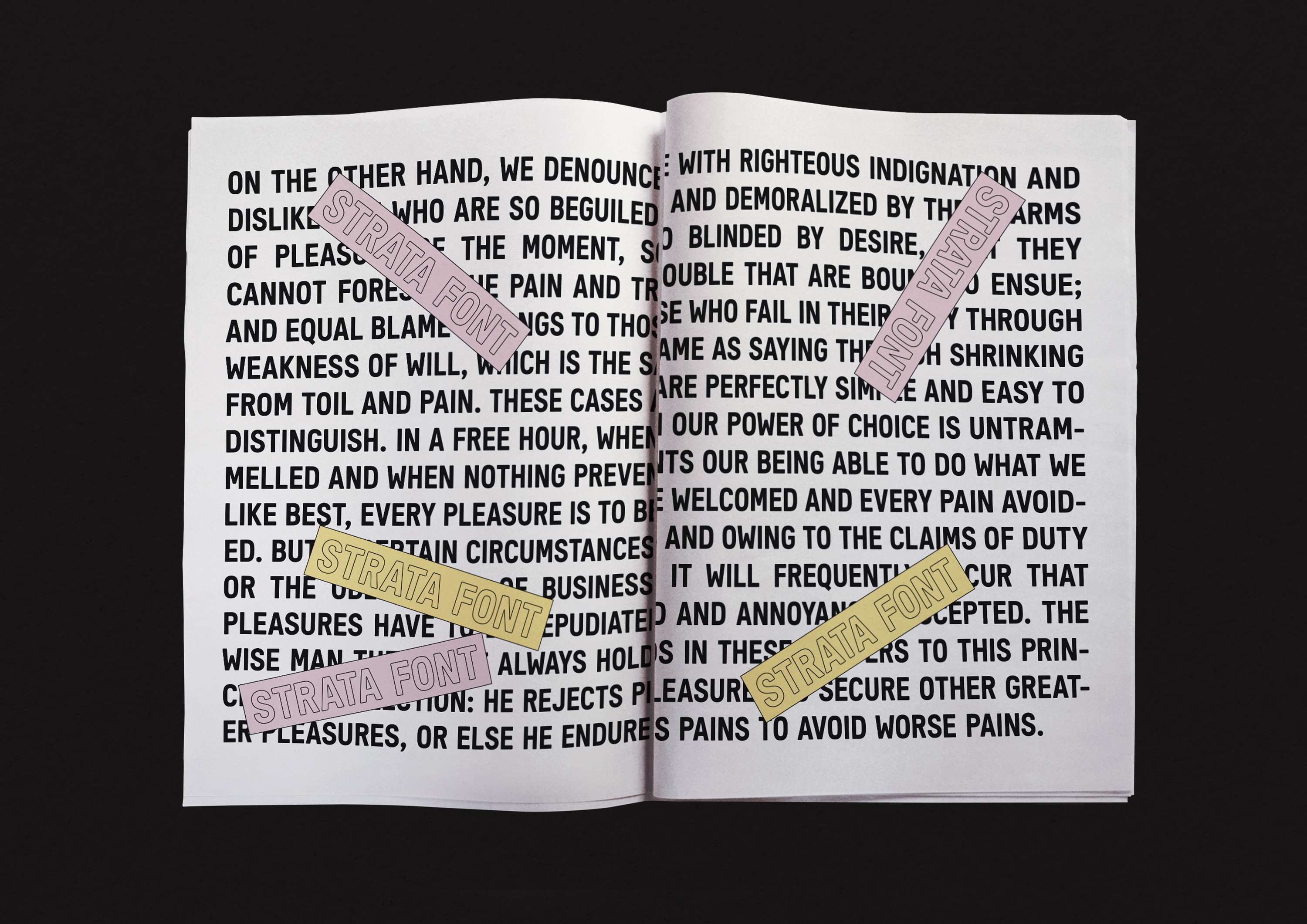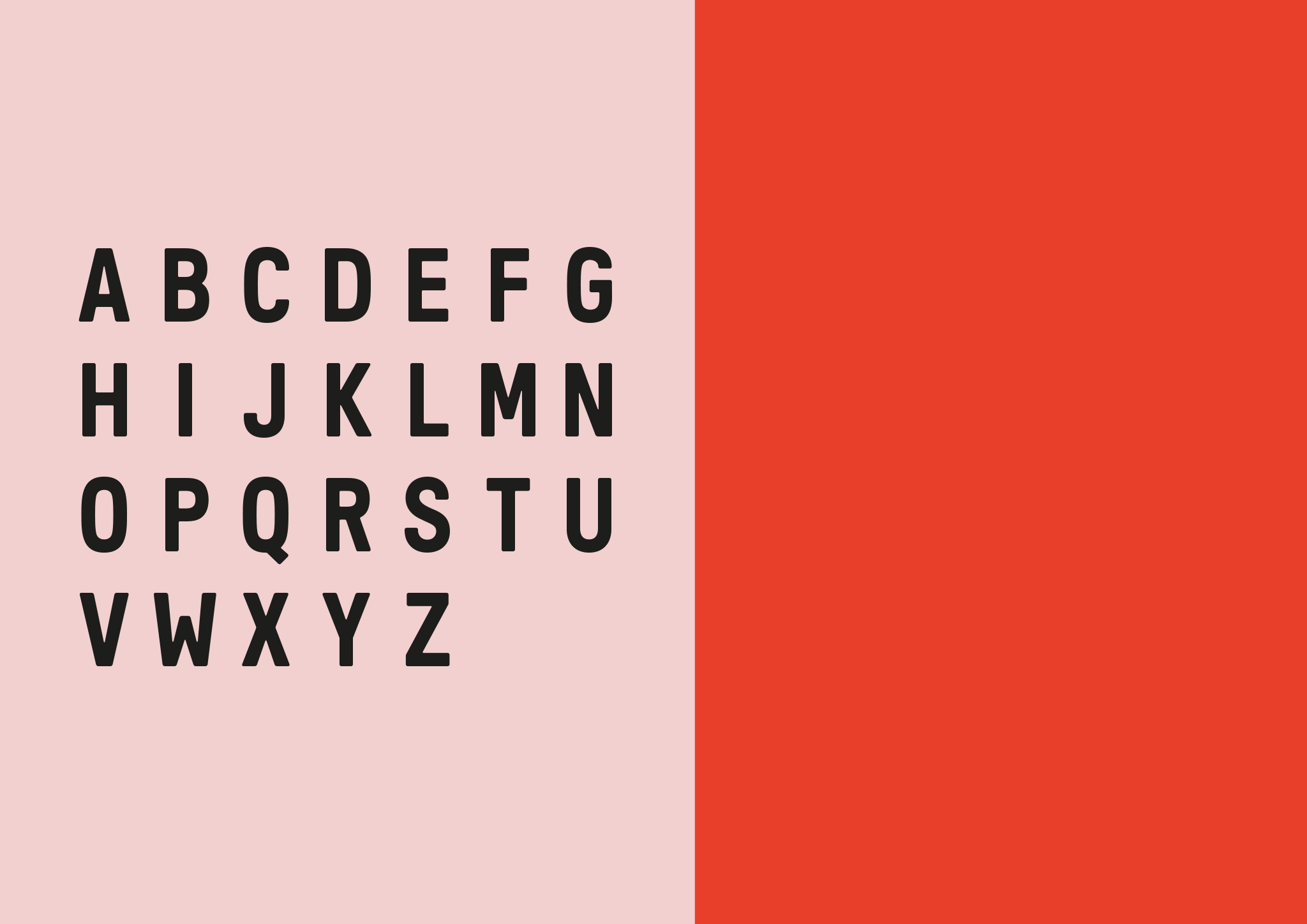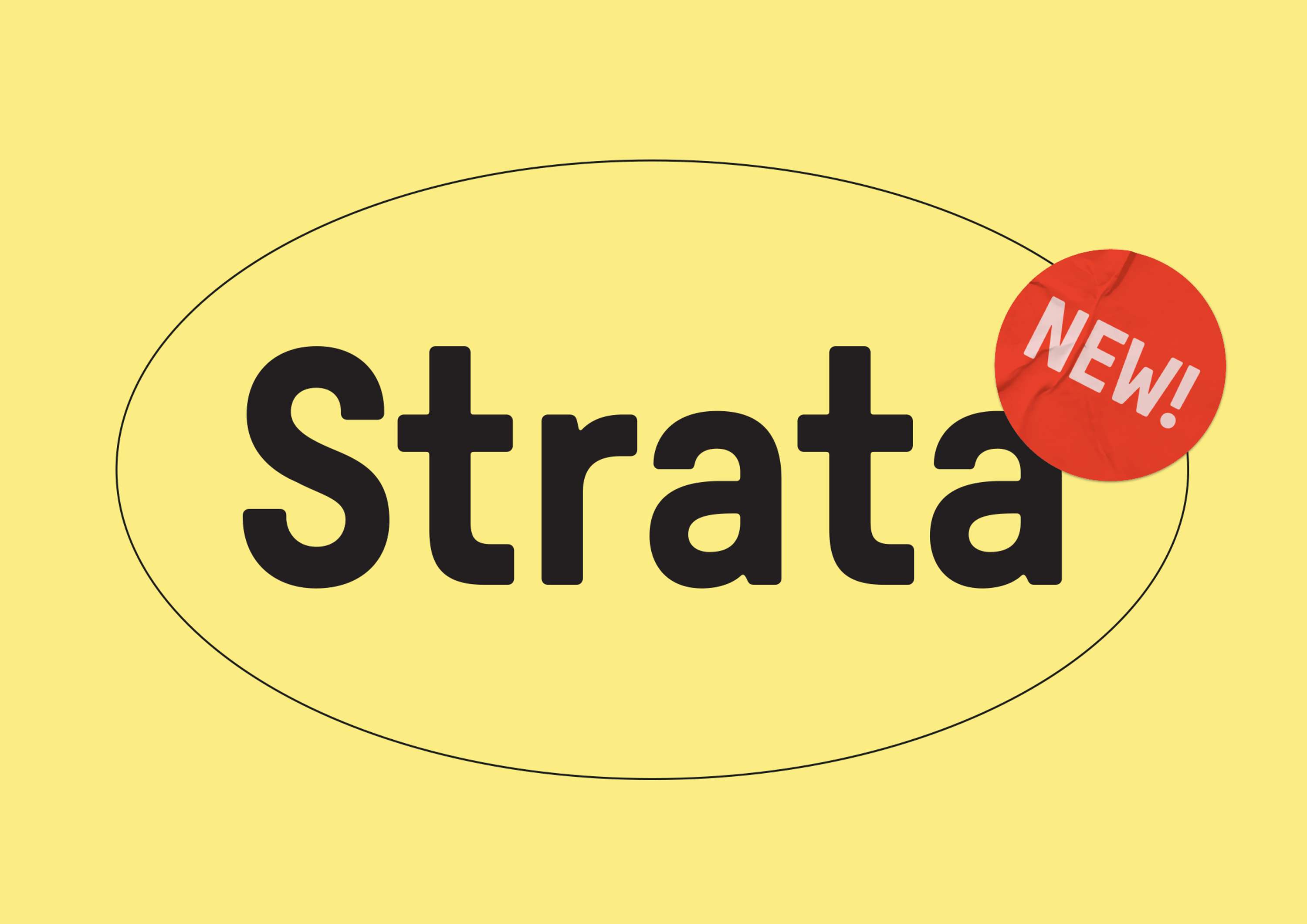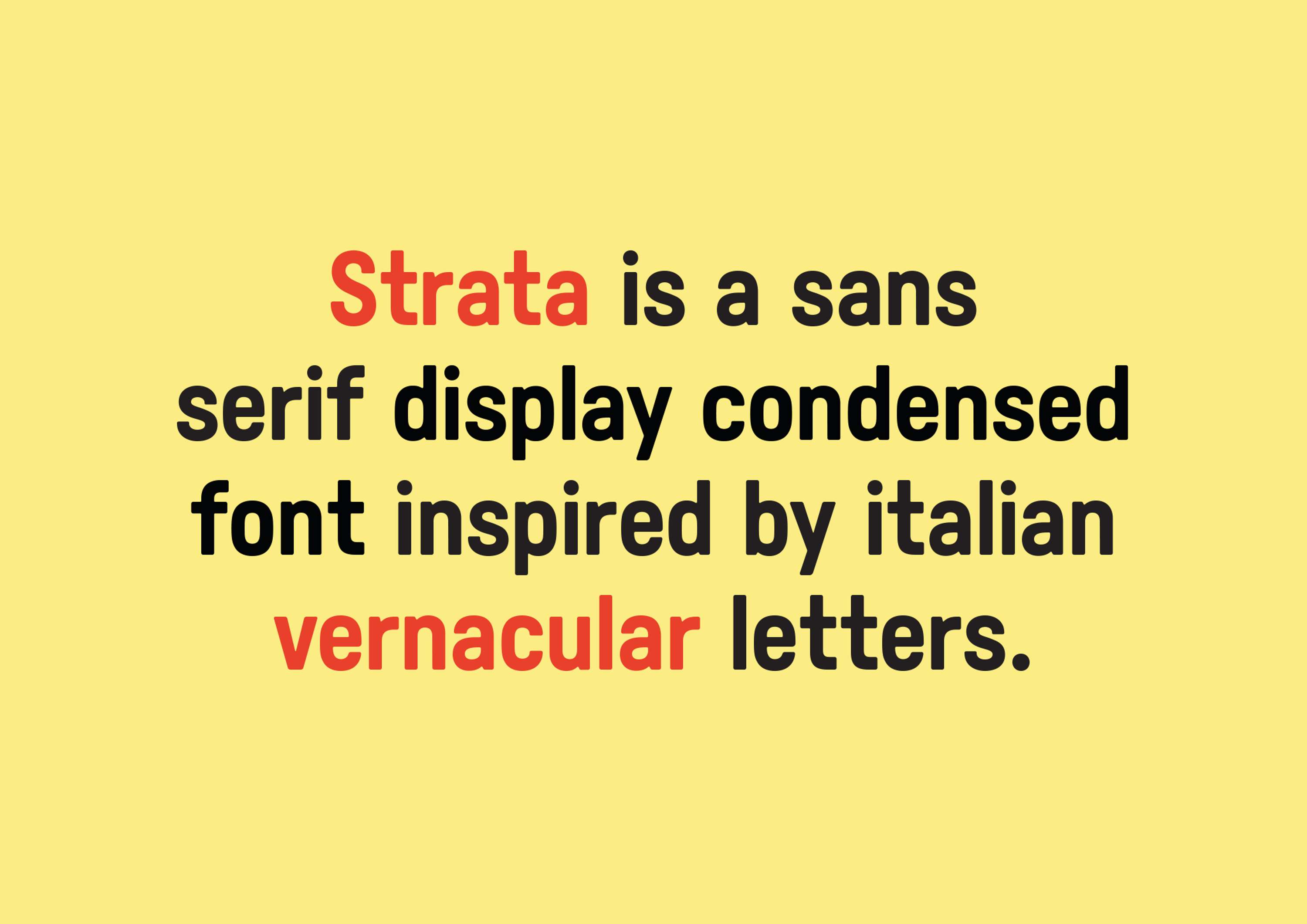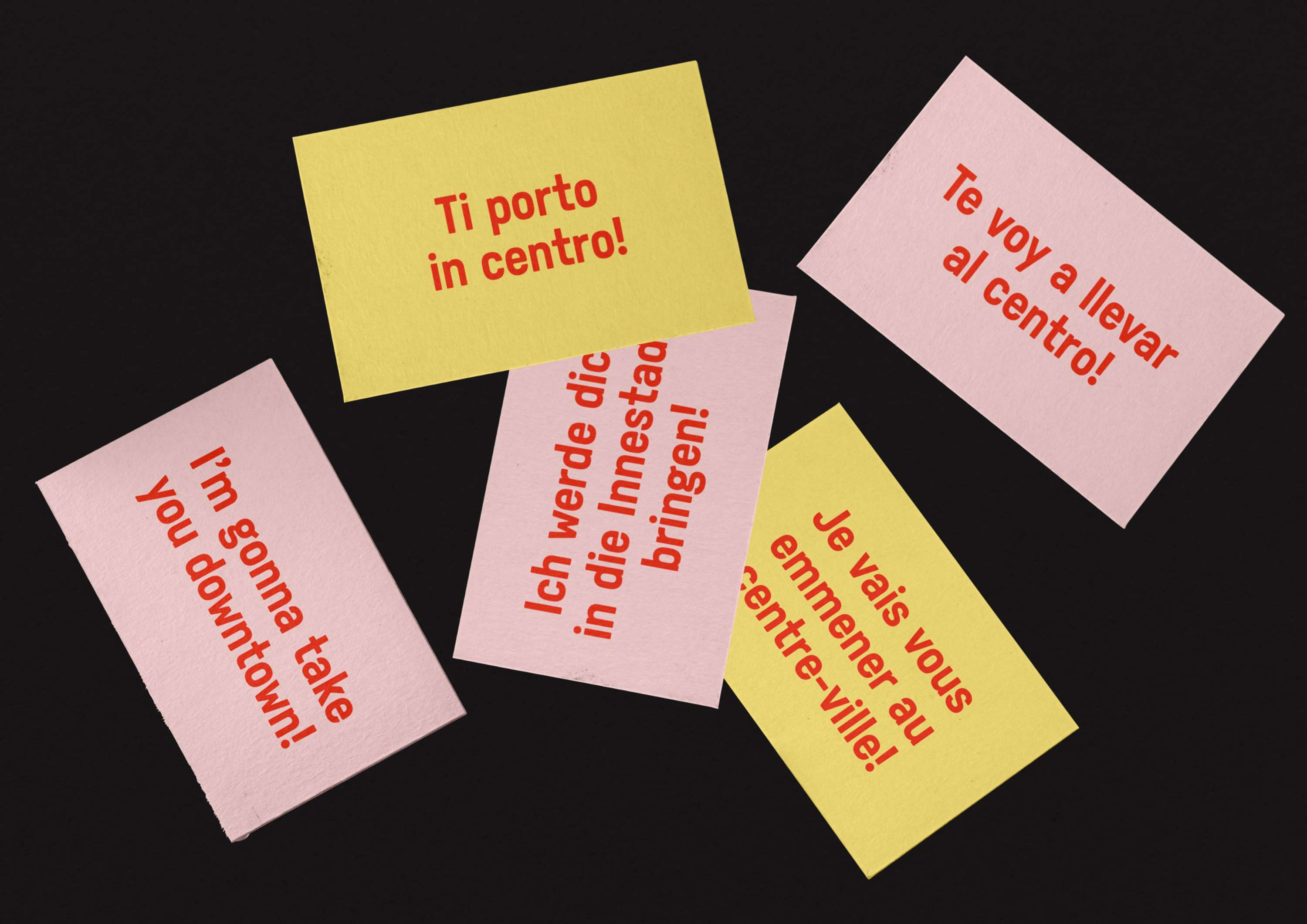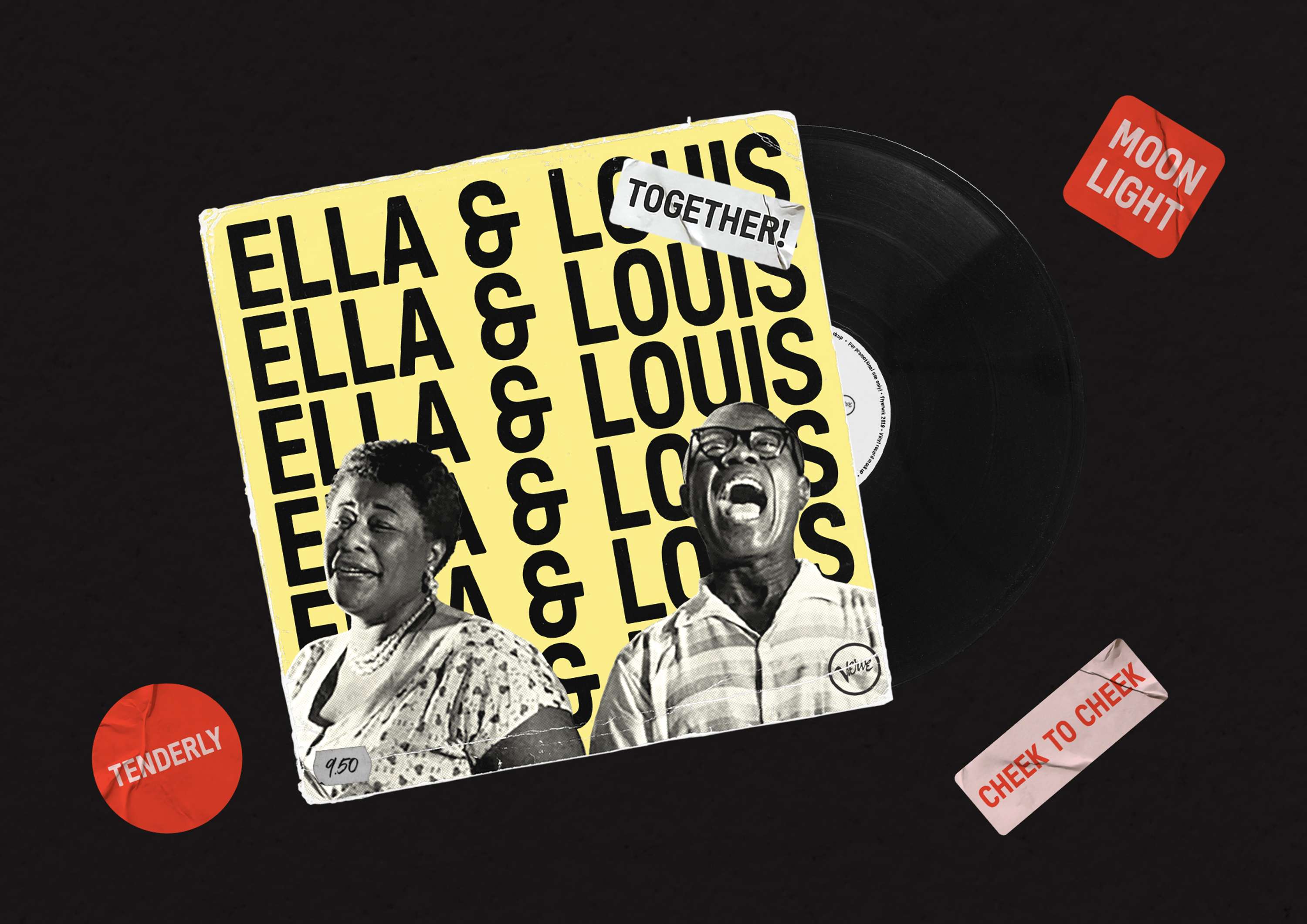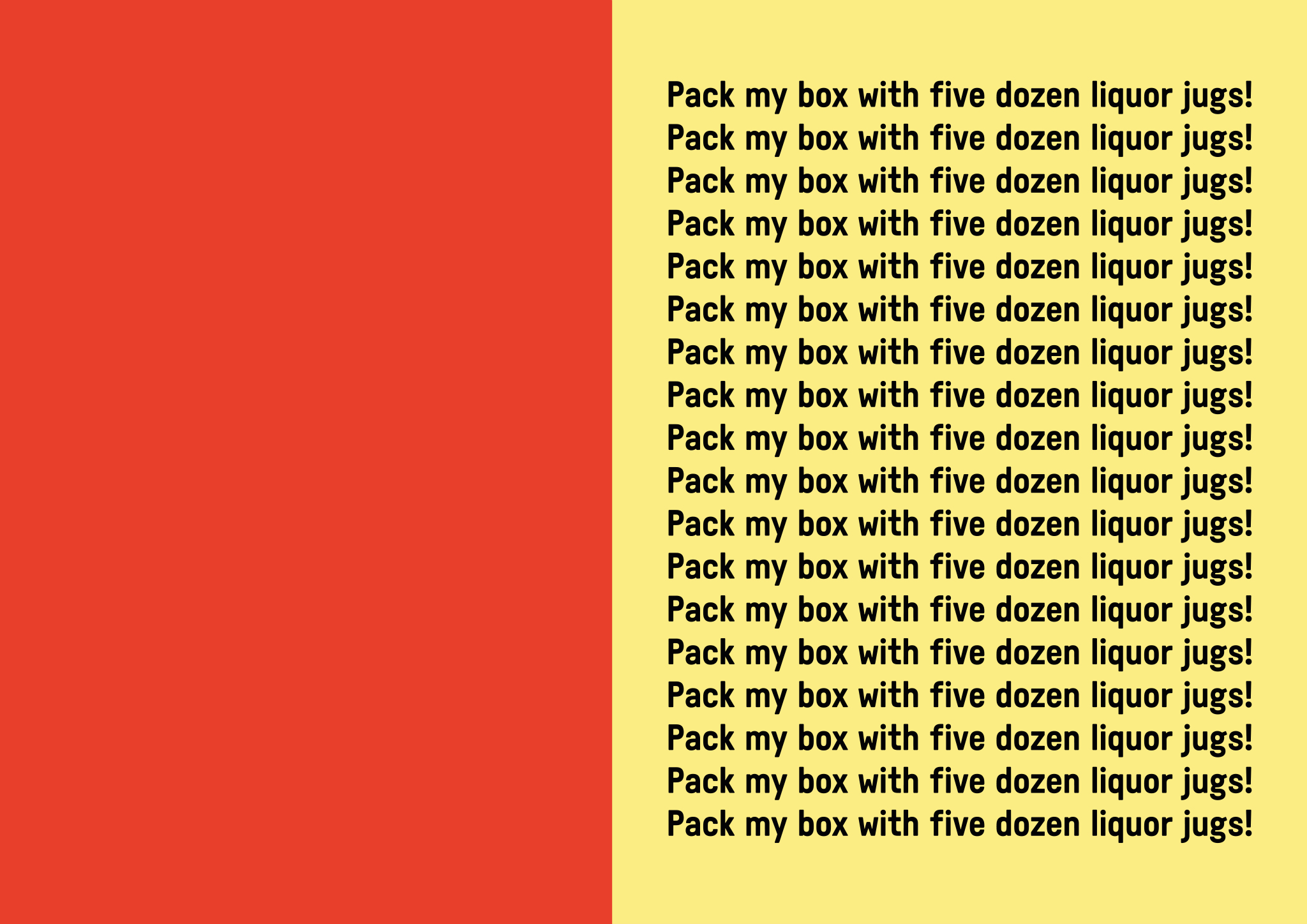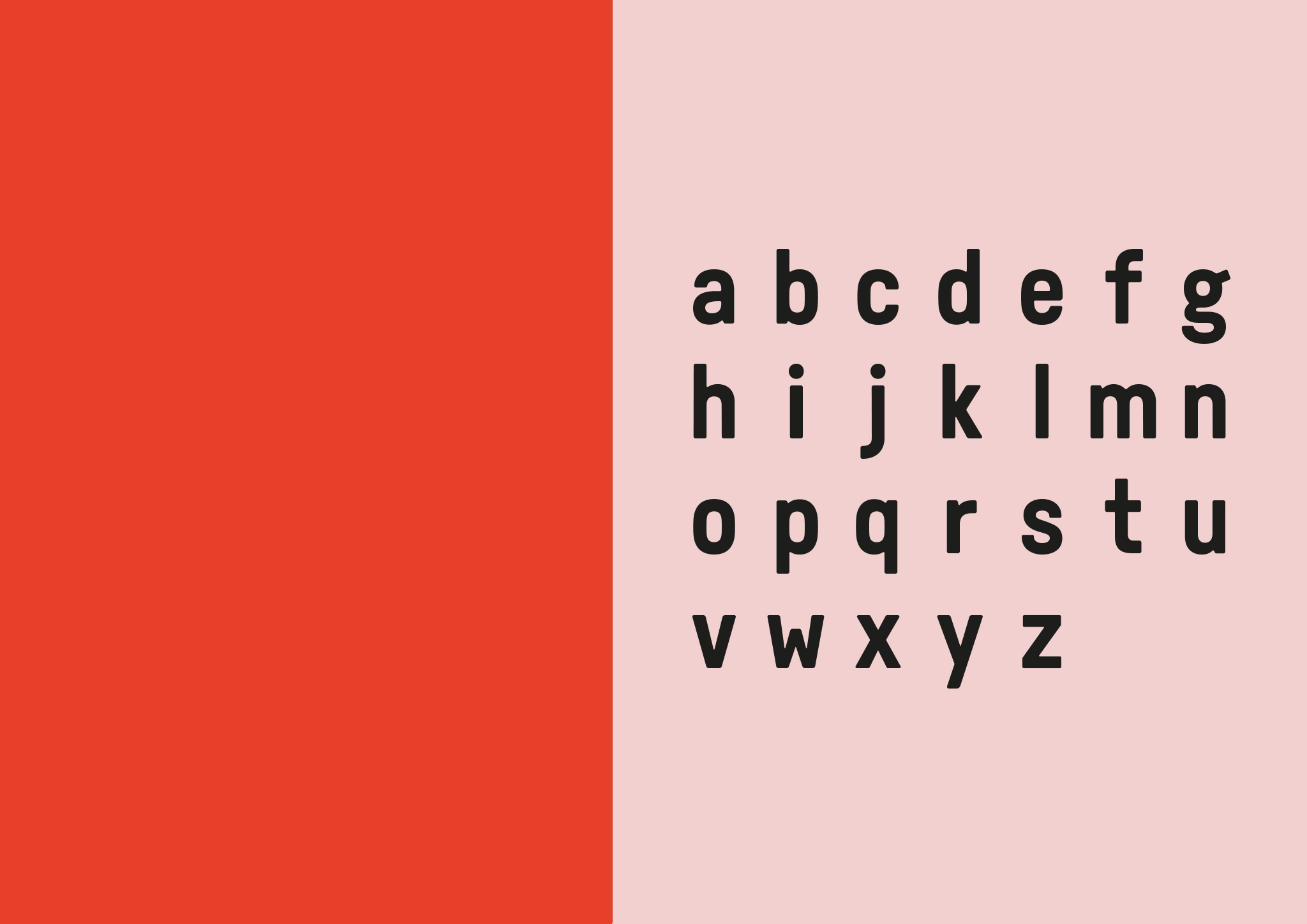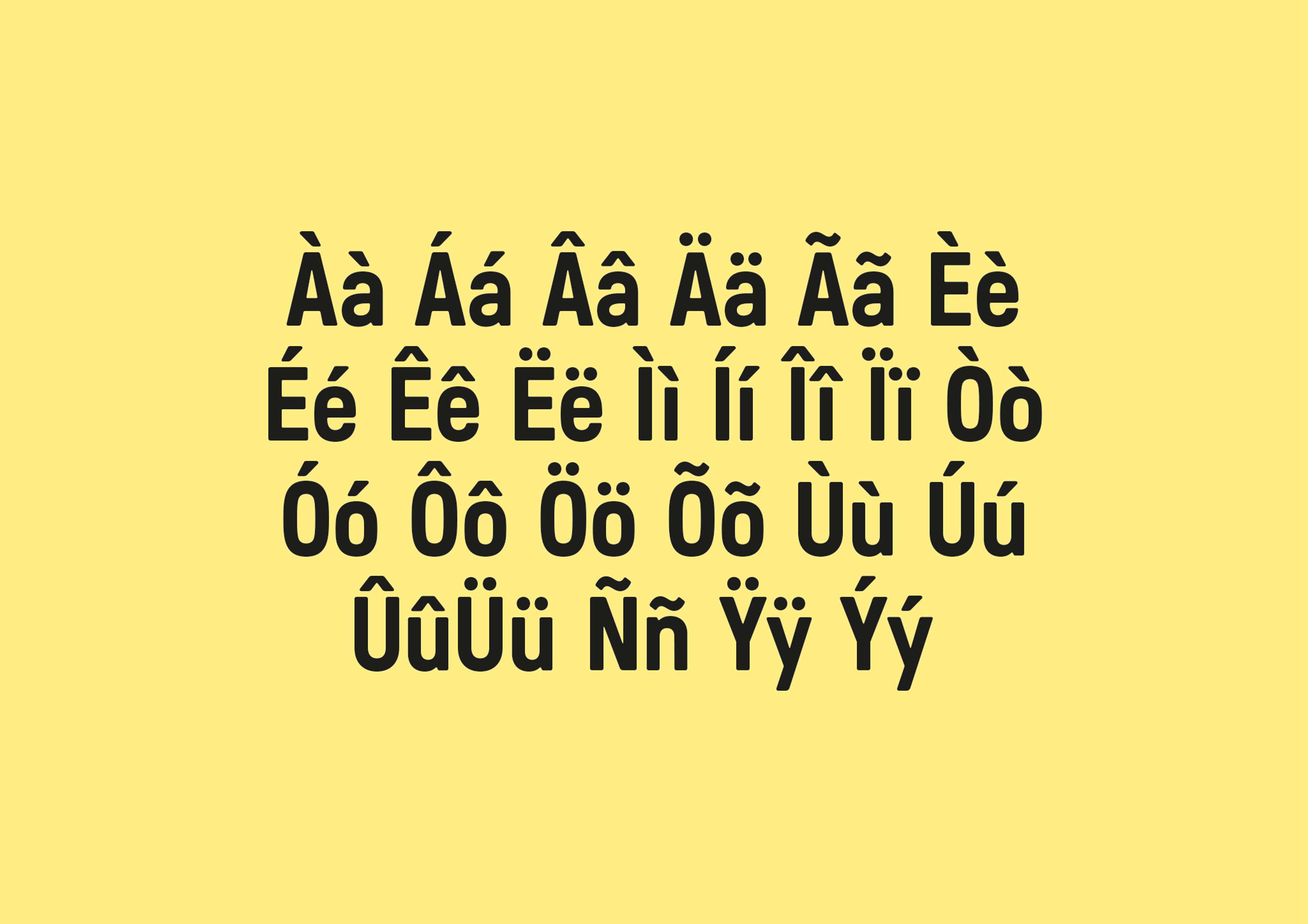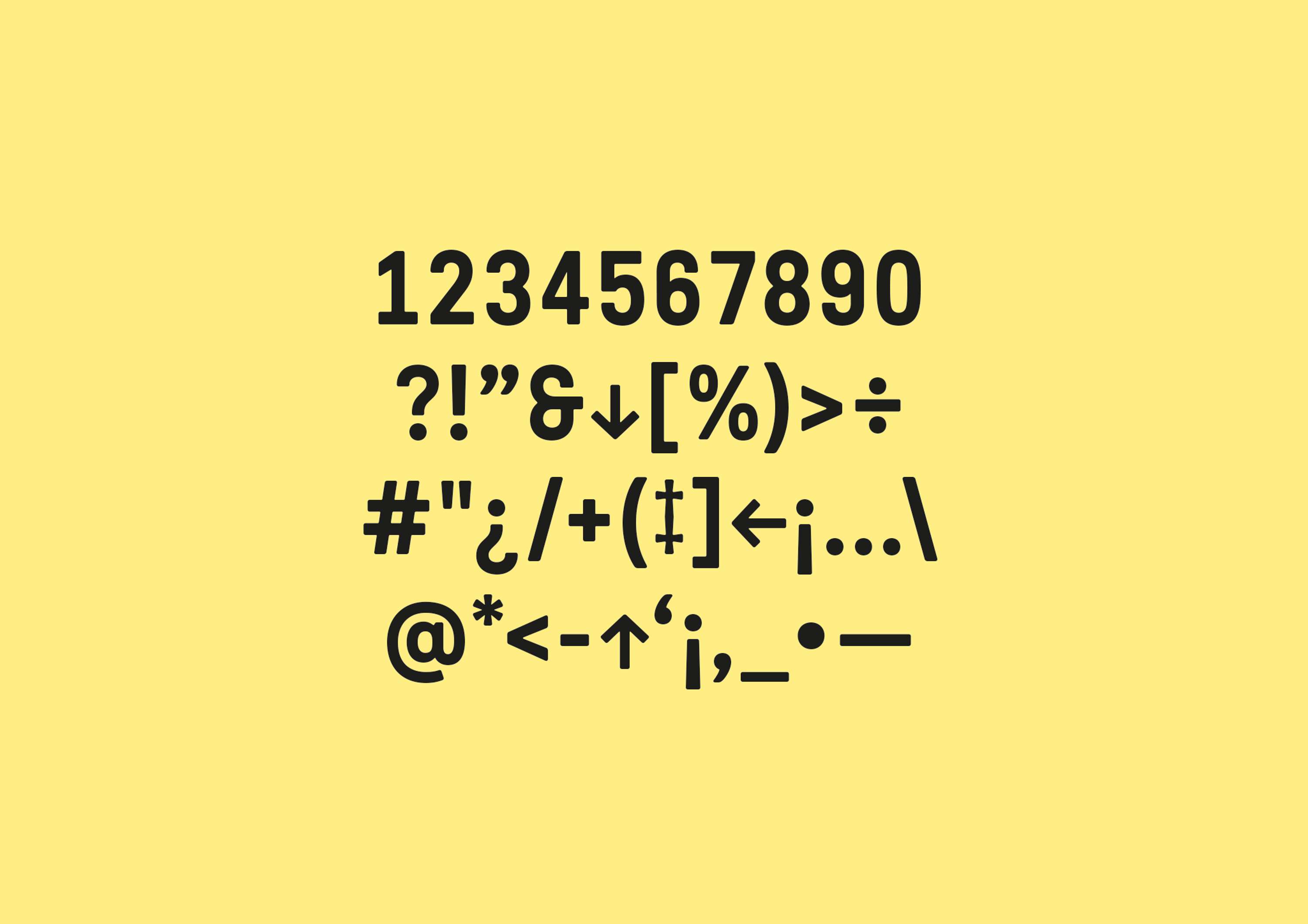
STRATA FONT
• Grazia Campanella
Inspired by Italian vernacular letters, Strata features smooth, rounded corners to evoke a vintage feel. This condensed and bold font has enough character to be used for logos, editorial or personal projects. Soon more styles will be available!